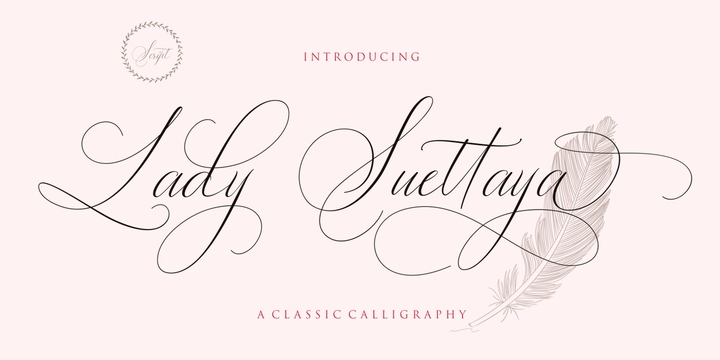
Lady Suettaya Font
Lady Suettaya Font is perfect for elegant wedding invitations, luxury branding projects, fashion magazine headlines, beauty product packaging, upscale restaurant menus, boutique signage, feminine blog headers, premium cosmetic labels, and sophisticated social media content.
What makes Lady Suettaya Font exciting is its graceful calligraphic strokes combined with modern sophistication that creates an irresistible feminine charm. The font's flowing letterforms and delicate flourishes evoke timeless elegance while maintaining contemporary readability, making it the perfect choice for brands targeting discerning audiences who appreciate refined aesthetic sensibilities.
Lady Suettaya Font family includes regular and bold weights with ornamental alternates, decorative swashes, and contextual ligatures, providing designers with extensive stylistic options for creating truly unique and memorable typographic compositions.
This exquisite script typeface embodies the essence of luxury and refinement in every curve and detail. Lady Suettaya Font Free Download presents an extraordinary opportunity for designers to elevate their creative projects with a font that seamlessly blends classical calligraphy traditions with modern design requirements. Whether you're crafting high-end fashion campaigns, designing exclusive event materials, or developing premium brand identities, this font family delivers unmatched elegance and visual impact.
The meticulously crafted character connections and smooth ink-flow simulation create authentic handwritten aesthetics that resonate with audiences seeking personal touch and artisanal quality. The extensive glyph set includes international characters, making it suitable for global luxury markets.
Lady Suettaya Font distinguishes itself through its perfect balance of sophistication and legibility, ensuring that elegance never compromises functionality. This exceptional typeface transforms ordinary text into extraordinary visual experiences, making it an invaluable asset for designers working in premium market segments.